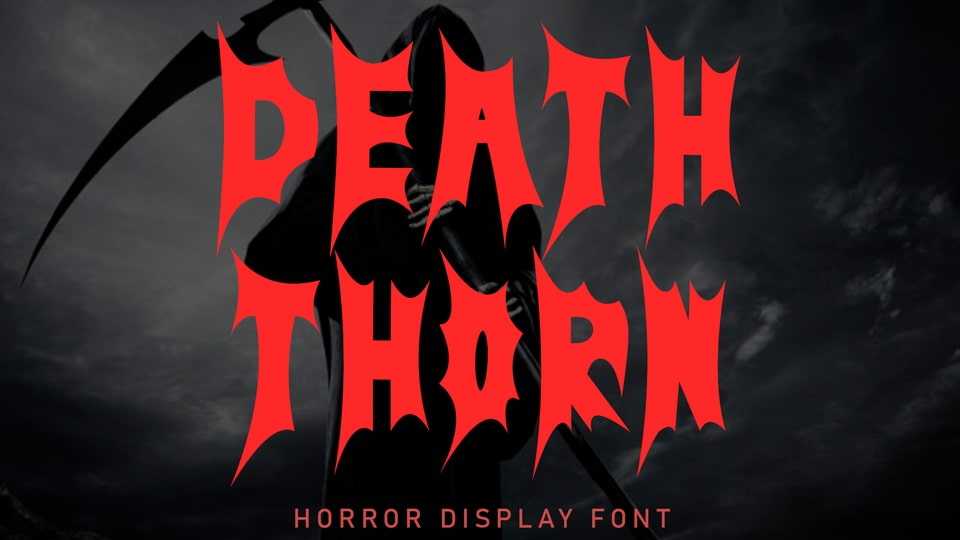
Download Death Thorn font, a spooky and unique display typeface. This font has thorns on each letter, very suitable for posters, banners, branding, stickers, logos, prints, Halloween, summer, spring, easter and others.